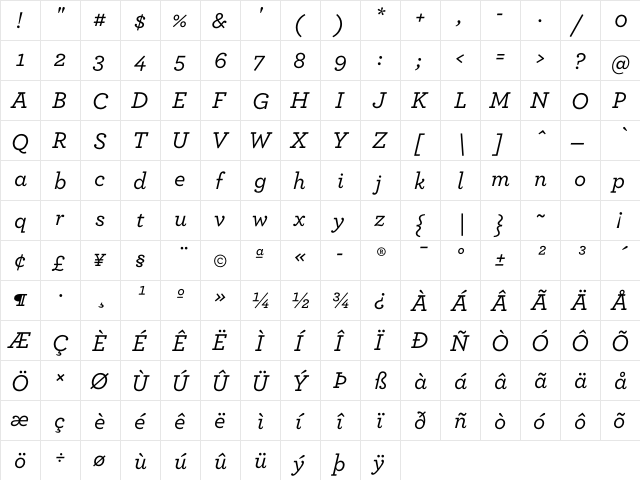
ArcherPro Medium Italic
Design Context for ArcherPro Typeface
ArcherPro offers clean, dependable letterforms without strong stylistic allegiance, making it a practical choice for designers who need flexibility. The slanted form adds forward momentum and visual energy.
Pro Tip: Use ArcherPro for emphasis, pull quotes, and subheadings where its slanted energy can add rhythm to the layout.